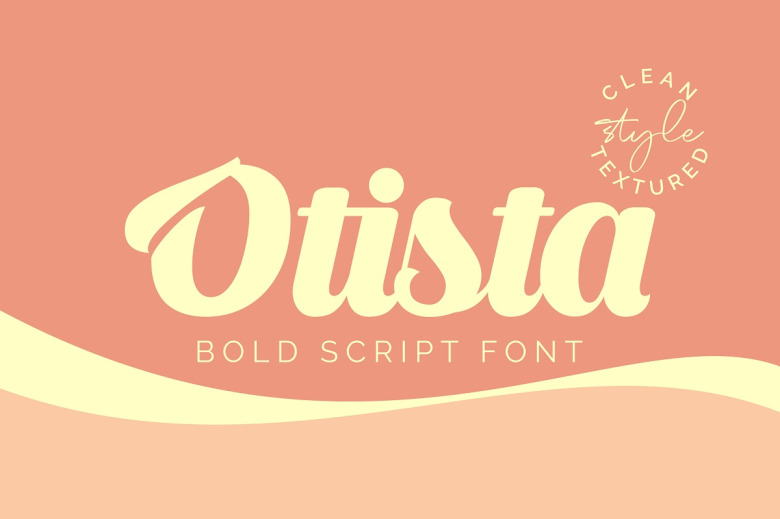
Otista Font
Otista Bold Script Font, designed by Omotu is an elegant bold retro Typeface inspired by the retro motorbike poster design. Comes with 2 styles, clean and textured. Great for logotype, branding, packaging design, poster design, website/display, editorial, headline, advertising, and more..